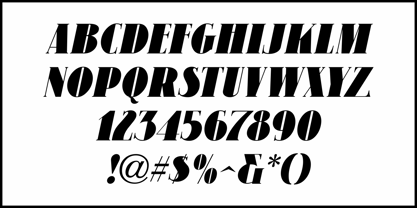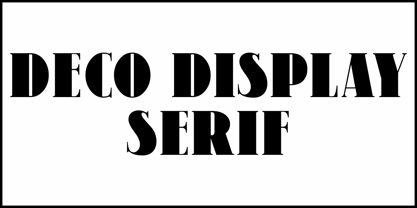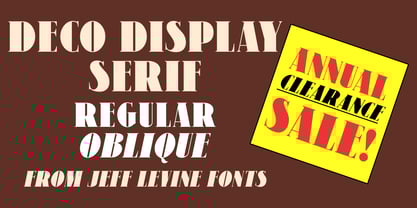
Deco Display Serif JNL
by Jeff Levine
The Deco Display Serif JNL Font Family was designed by Jeff Levine and published by Jeff Levine. Deco Display Serif JNL contains 2 styles and family package options. More about this family
An attractive extra-bold thick and thin serif type design was part of the vintage French lettering book "32 Alphabets Moderne".
This is now available digitally as Deco Display Serif JNL in both regular and oblique versions.